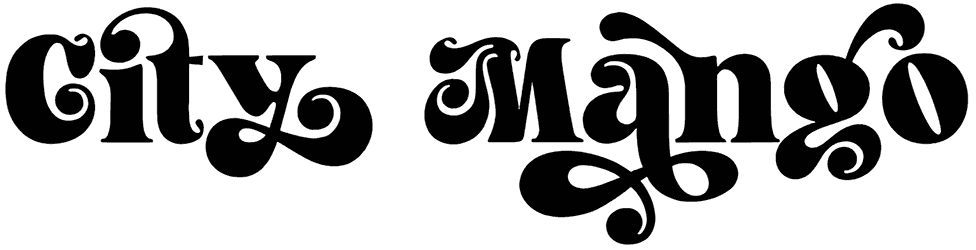
City Mango Font
City Mango font has that juicy urban-playful mood that makes a headline feel sunny, bold, and a little mischievous. Its rounded display shapes bring friendly street energy, like typography made for smoothie bars, summer posters, or a brand that wants to look fresh without getting too polished. You get warmth, fun, and enough visual weight to make the words pop right away.
Use City Mango font for juice packaging, tropical café logos, kids’ menus, street food branding, beach event flyers, stickers, or cheerful social media graphics. Pair this retro font with mango orange, leafy greens, soft shadows, and playful illustrations for maximum flavor.